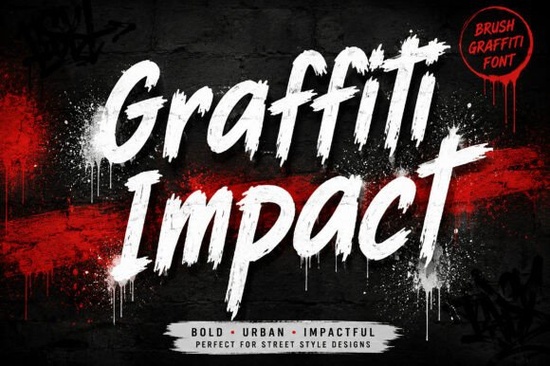
If you're looking for a font that brings raw energy and urban authenticity to your designs, Graffiti Impact Font is a strong choice. It captures the spirit of street art with bold brush strokes and hand-painted texture, making it perfect for projects that need a fearless, expressive look. Whether you’re working on music posters, clothing labels, social media content, or event flyers, this font stands out without trying too hard.
What makes Graffiti Impact Font stand out?
Unlike clean, digital fonts, Graffiti Impact feels alive. Its uneven lines and textured strokes mimic real spray paint and brushwork like something you’d see on a city wall or skate ramp. This isn’t just a lettering style; it’s a vibe. The font carries a rebellious attitude that fits well with hip-hop culture, streetwear branding, and modern graffiti-inspired visuals.
It works especially well when you want to add personality to your work. You don’t need to overthink the design just drop in the font, and it already feels intentional. The rough edges and dynamic flow give your project an authentic, handmade quality that many polished fonts can’t match.
Where can I use Graffiti Impact Font?
This font shines in creative spaces where attitude matters. Here are a few practical uses:
- Music & album covers – Perfect for hip-hop, punk, or indie artists who want their branding to feel real and unfiltered.
- Streetwear and apparel – Ideal for t-shirt designs, hoodies, or brand logos that speak to urban youth culture.
- Event flyers and posters – Great for concerts, skate events, or pop-up markets where bold visuals grab attention fast.
- YouTube thumbnails – Helps your video titles stand out in crowded feeds with a high-impact, eye-catching style.
- Gaming and esports branding – Works well for team names, leaderboards, or in-game UI elements that need a gritty edge.
How does it compare to similar fonts?
If you’ve explored other display fonts, you might have seen options like Temur Amorak Urban Bold Brush Font, which also delivers a strong street-style presence. While both share a hand-painted feel, Graffiti Impact leans more into the rawness of spray paint and has a slightly more aggressive stroke pattern. It’s less refined than some alternatives but more expressive.
For those who love retro flair, you might also check out Retro Script Font Display Fonts. These offer a nostalgic twist, often with smoother curves and vintage vibes. But if your goal is urban grit, Graffiti Impact hits harder in terms of attitude and texture.
Why designers choose Graffiti Impact
Designers appreciate how easy it is to use while still delivering big results. You don’t need advanced skills to make it look professional. Just pair it with simple backgrounds or solid colors to let the font lead the visual story.
Final thoughts
Graffiti Impact Font isn’t about perfection. It’s about expression. If your work thrives on authenticity and movement, this font adds exactly what you need: a sense of place, energy, and real-world inspiration.